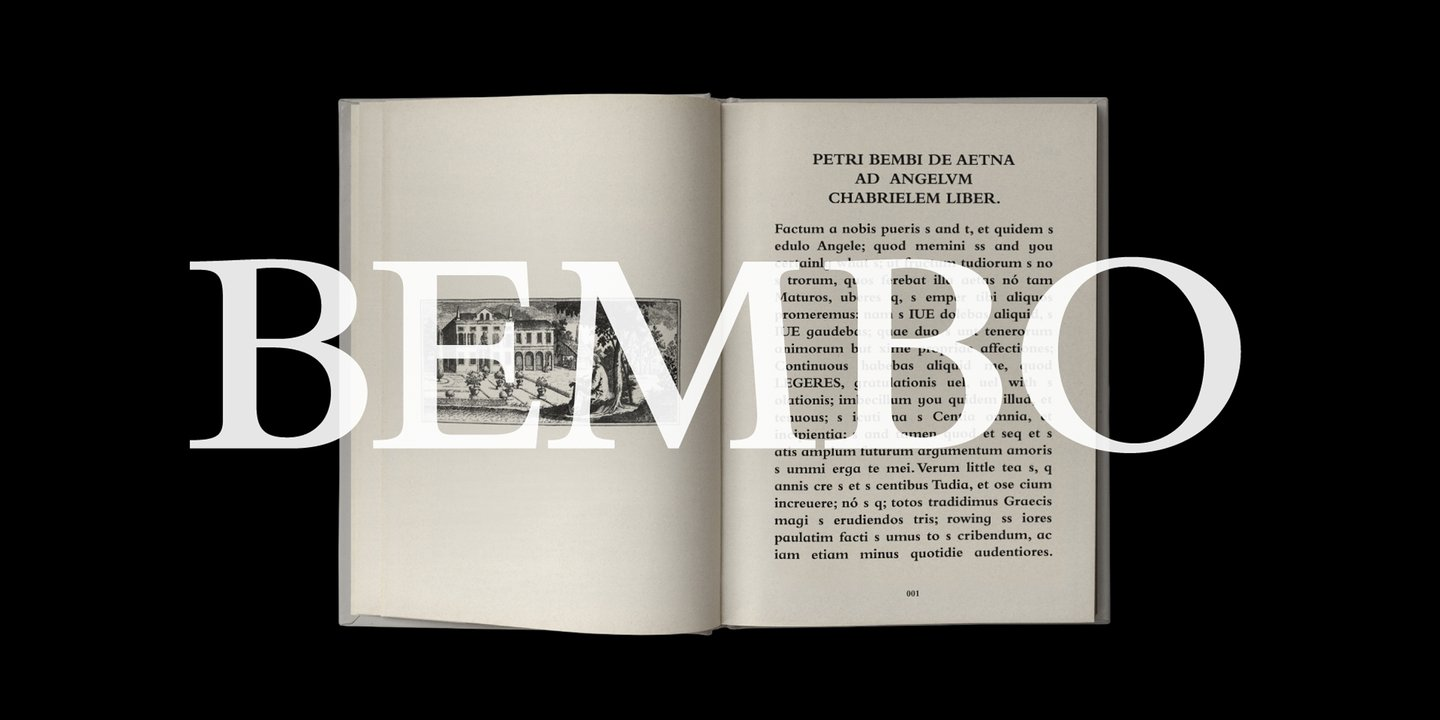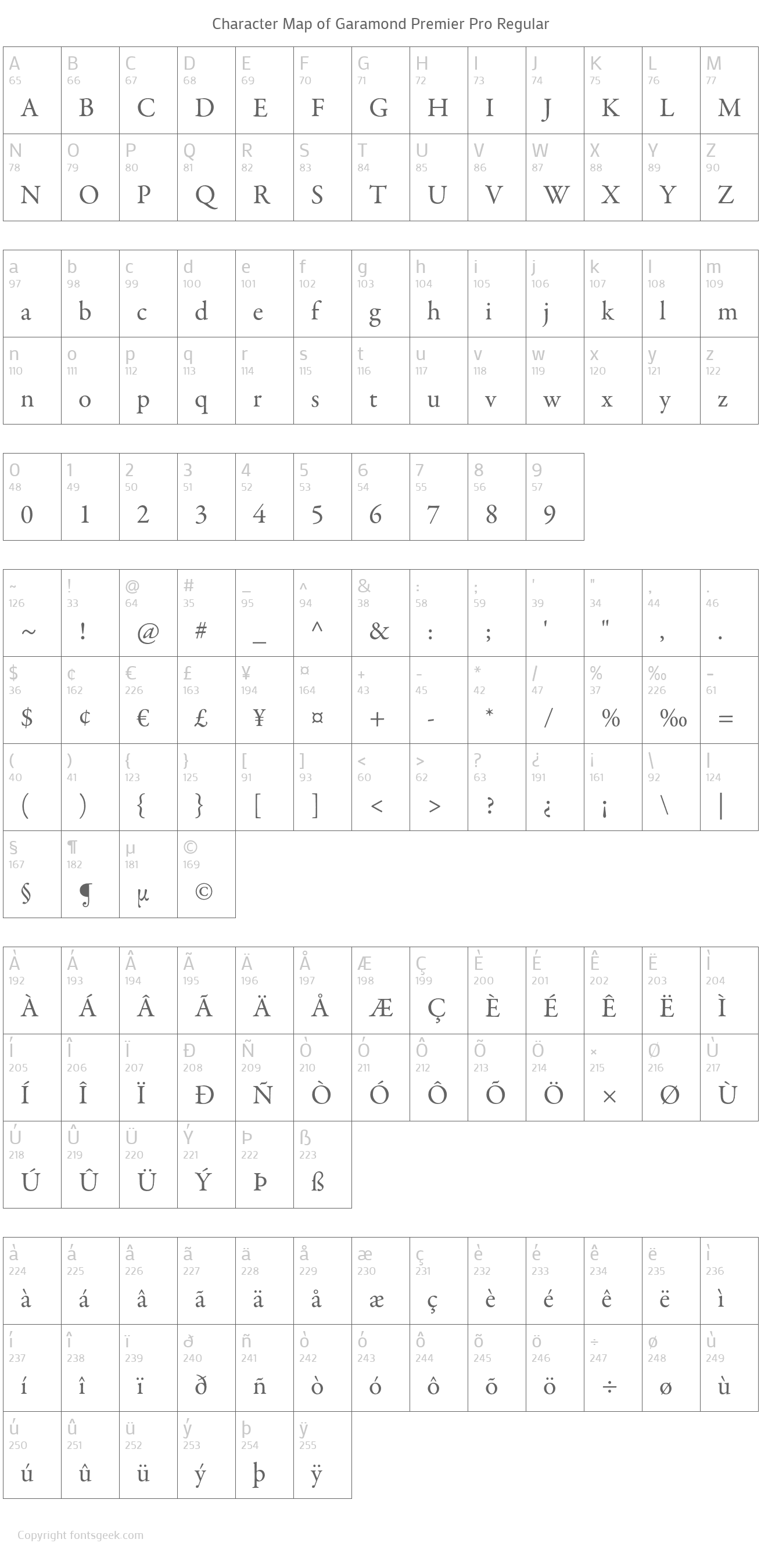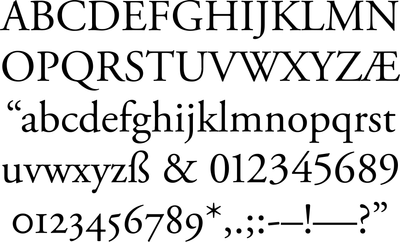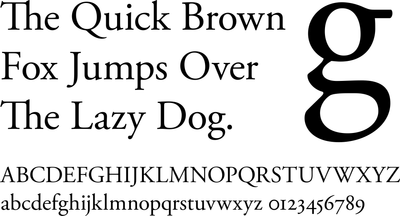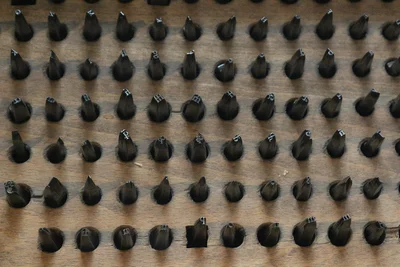
Bembo vs Garamond Premier
Bembo and Garamond Premier are both serif typefaces sharing a elegant foundation. Where Bembo leans academic, Garamond Premier brings retro. Compare which suits your Books project.
Bembo
Old Style
Elegant
Academic
Garamond Premier
Old Style
ElegantRetro
| Feature | Bembo | Garamond Premier |
| Language Support | latin, latin-extended | latin, latin-extended, cyrillic, greek |
| Source | Monotype | Adobe |
Typography for academic papers, research publications, and scholarly documents. ...
Recommended: Bembo
- academic design character
- Suited for Academic
- From monotype
Consider: Garamond Premier
- retro design character
- Suited for Branding
- From adobe